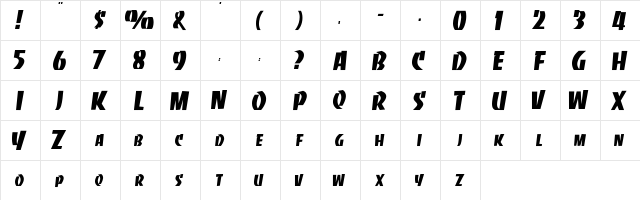
PCHardnose Regular Font Preview
PCHardnose Regular
Design Context for PCHardnose Typeface
PCHardnose is a composed and adaptable typeface that performs quietly and consistently across a wide range of design contexts.